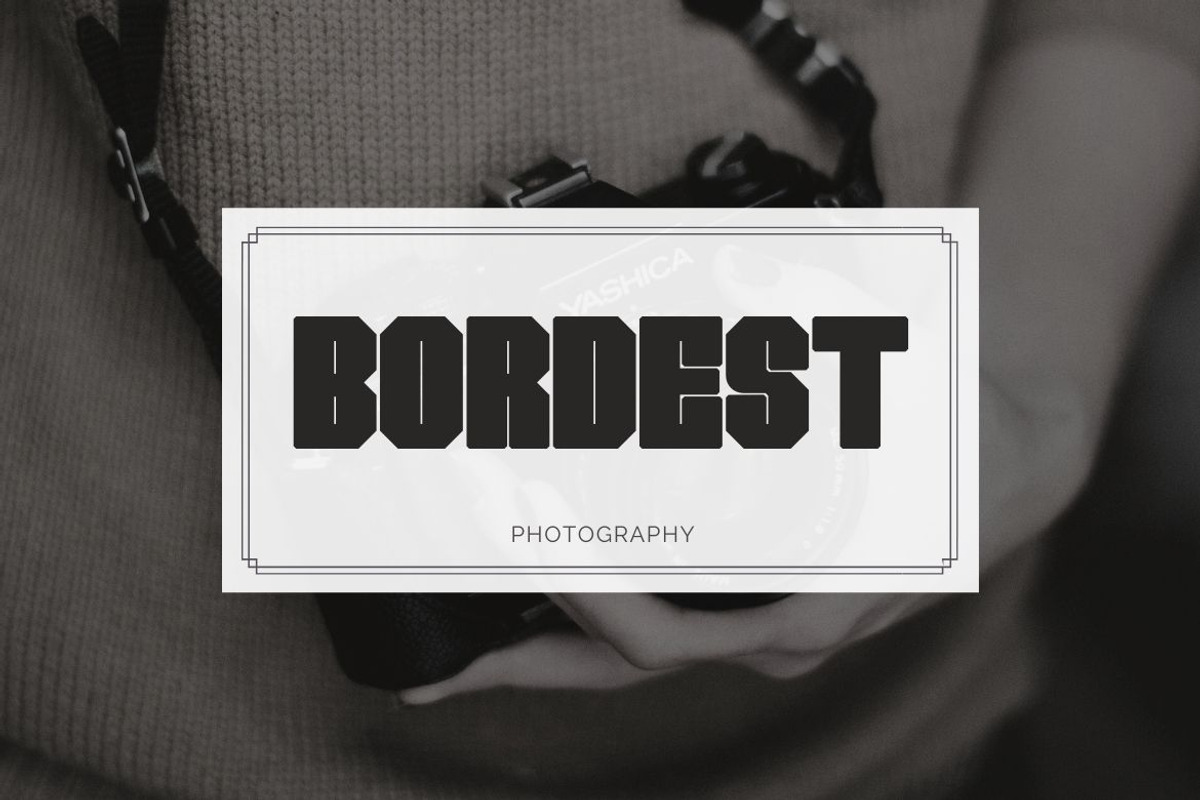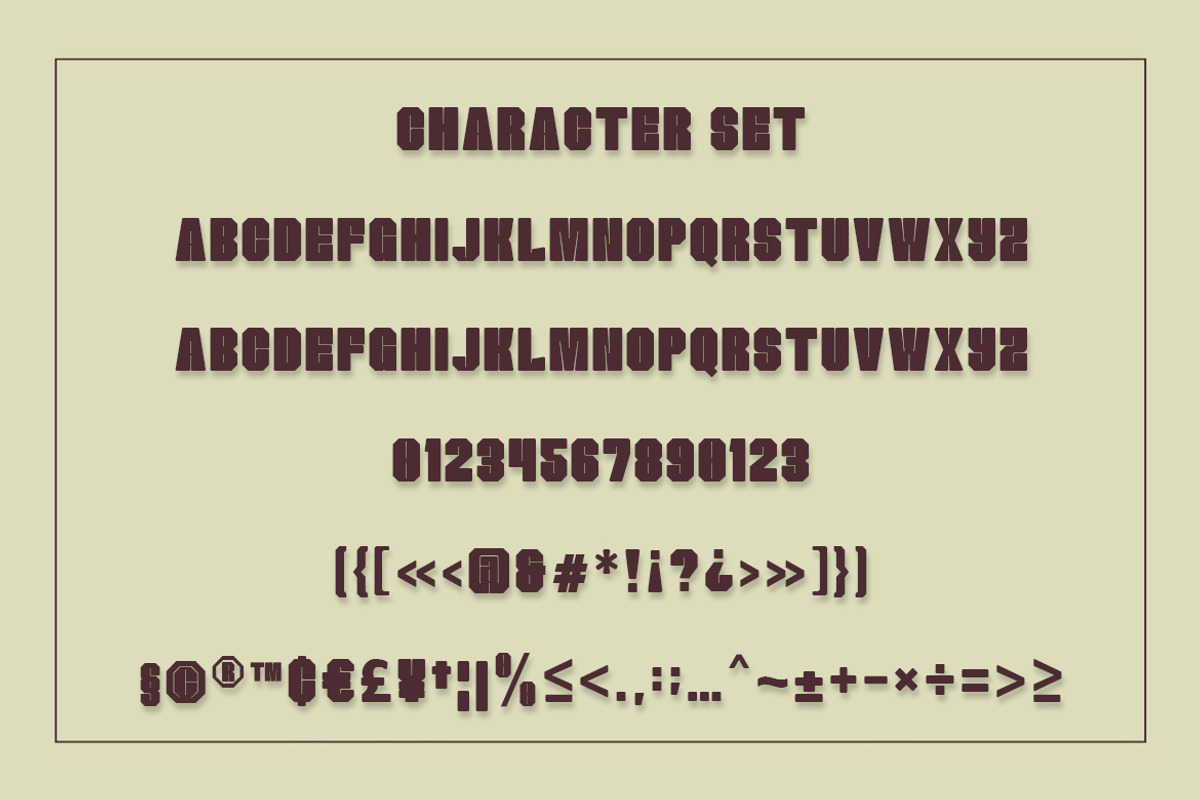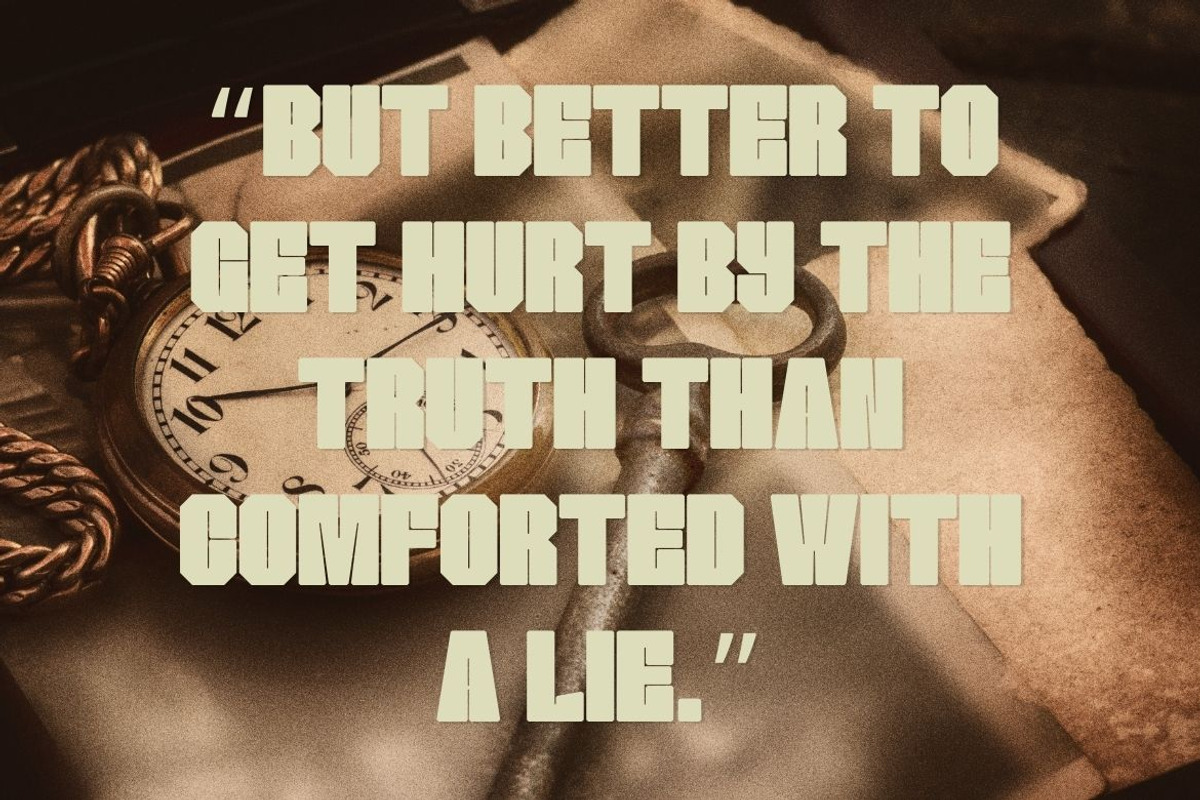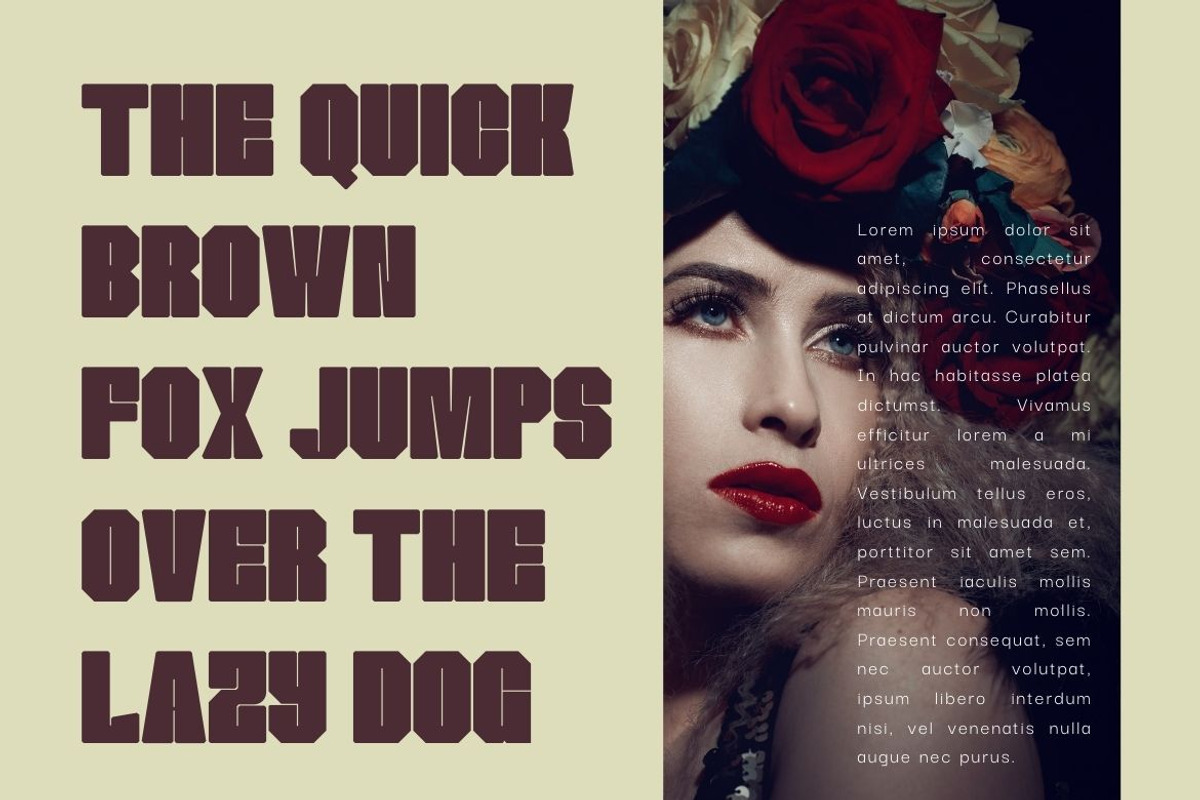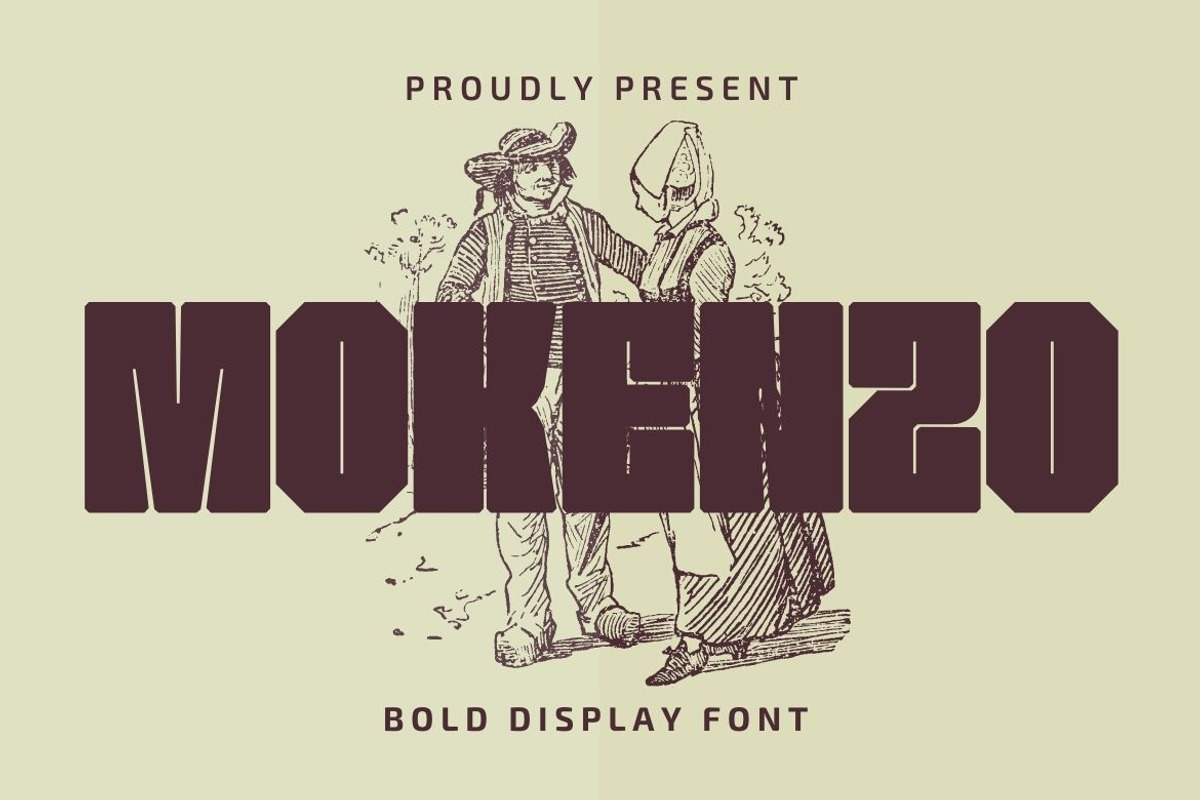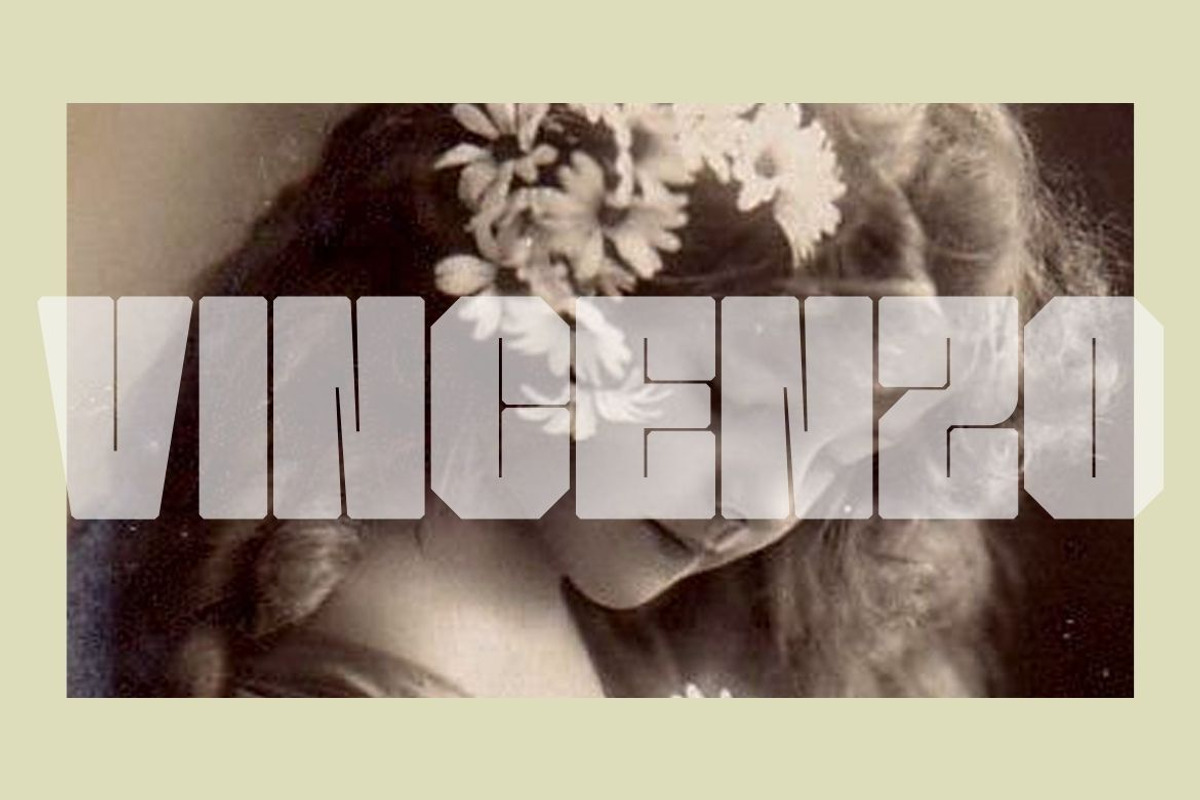
Mokenzo - Heavy Sans
Introducing Mokenzo A Heavy Sans Serif. Mokenzo is a modern and simple font, best used as a display for headings, logos, branding, magazines, product packaging, etc. Mokenzo come with clean lines and smooth curves give any project an extra touch of class.